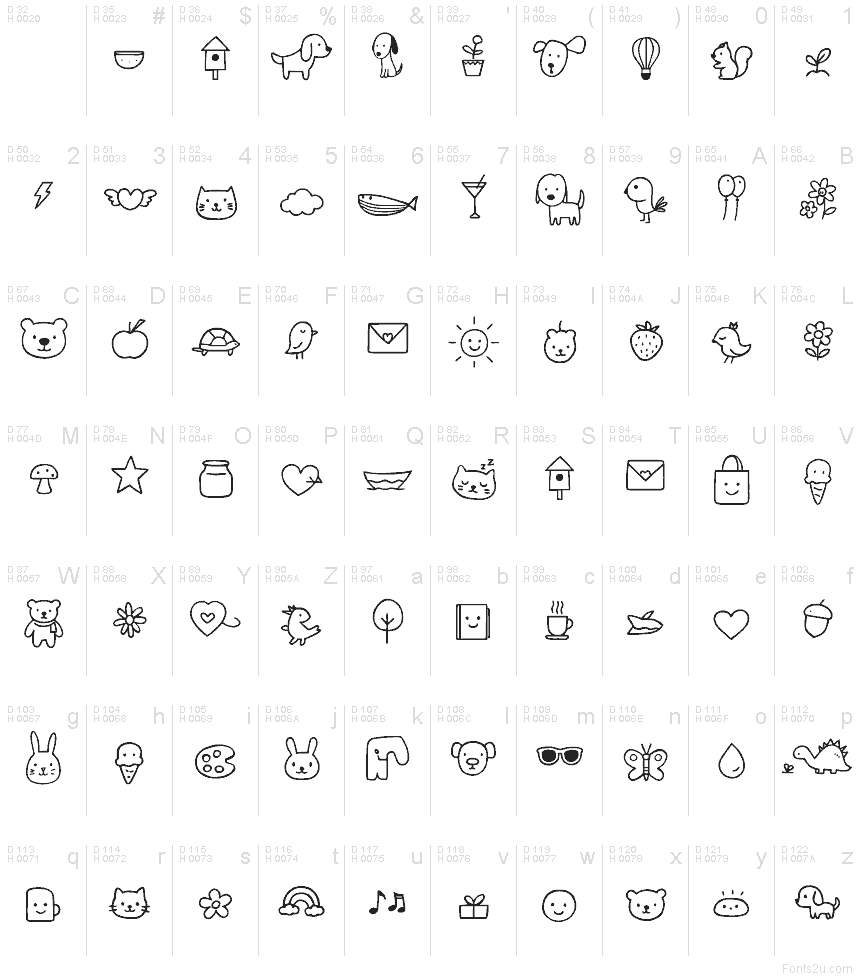
Un Escargot qui Saute
Un Escargot qui Saute font by BlackFridayFont FMF is a free cartoon dingbats typeface. It tidies up a familiar headache: finding cute, consistent icons that actually match. With clean, inky outlines and softly rounded shapes, its set of cheerful pictograms—think a simple tree, a smiling notebook, a steaming mug, a leaf, a heart, an acorn—feels cohesive and ready to drop into layouts without fuss.
Using Un Escargot qui Saute, you can add instant charm to children’s worksheets, classroom labels, planners, eco-friendly packaging, recipe cards, greeting cards, and sticker sheets. The even stroke and open forms stay clear at small sizes; nudge up tracking for airy, friendly spacing. Pair this free font with a rounded sans to keep the line quality consistent and the mood warm.